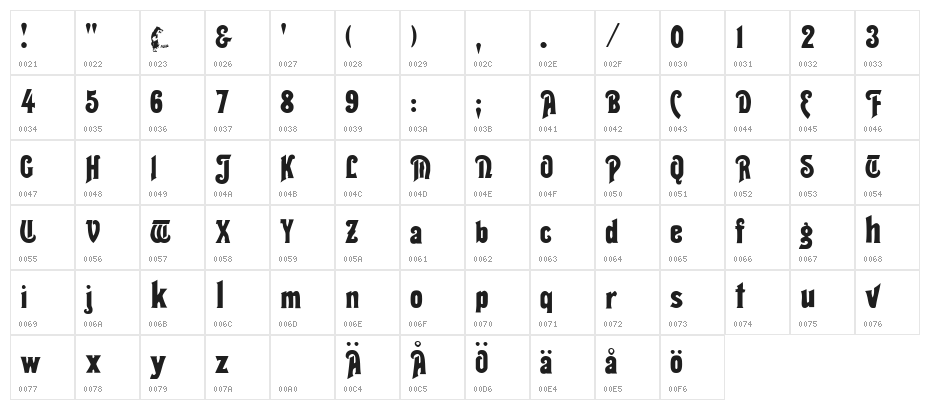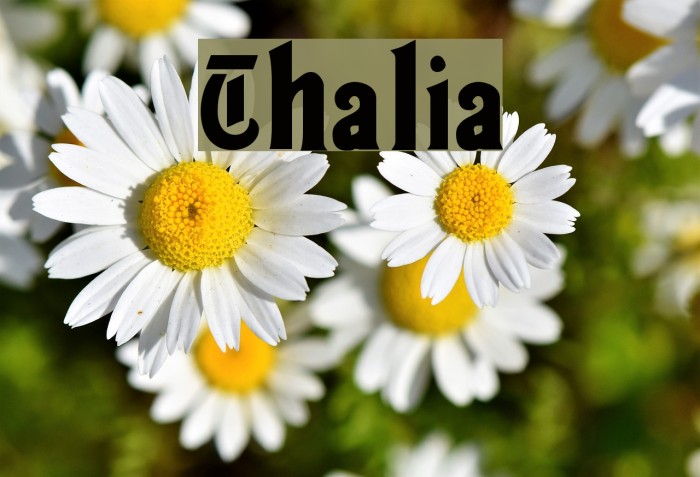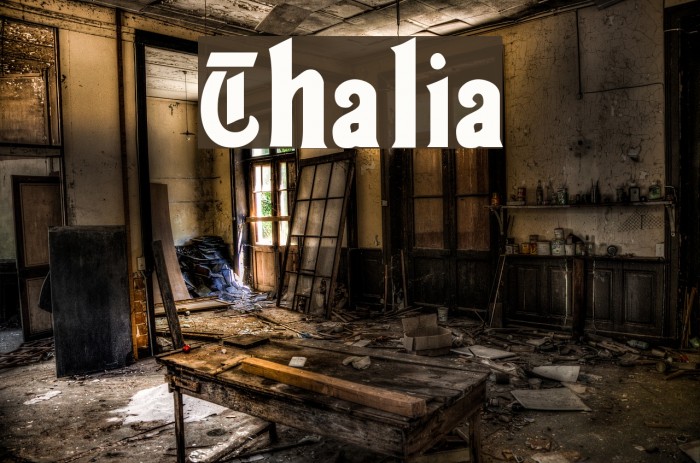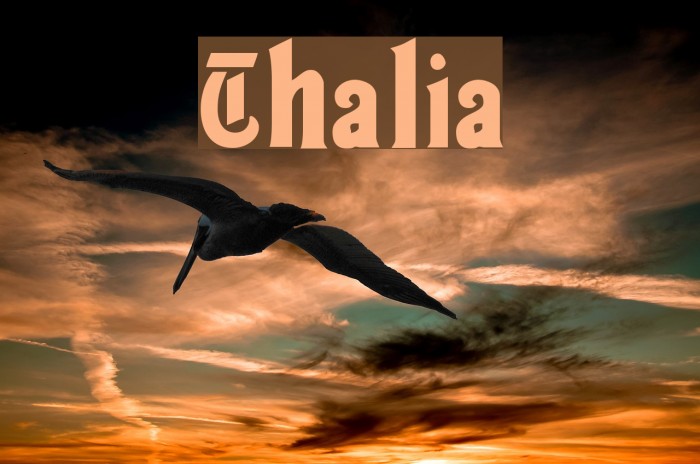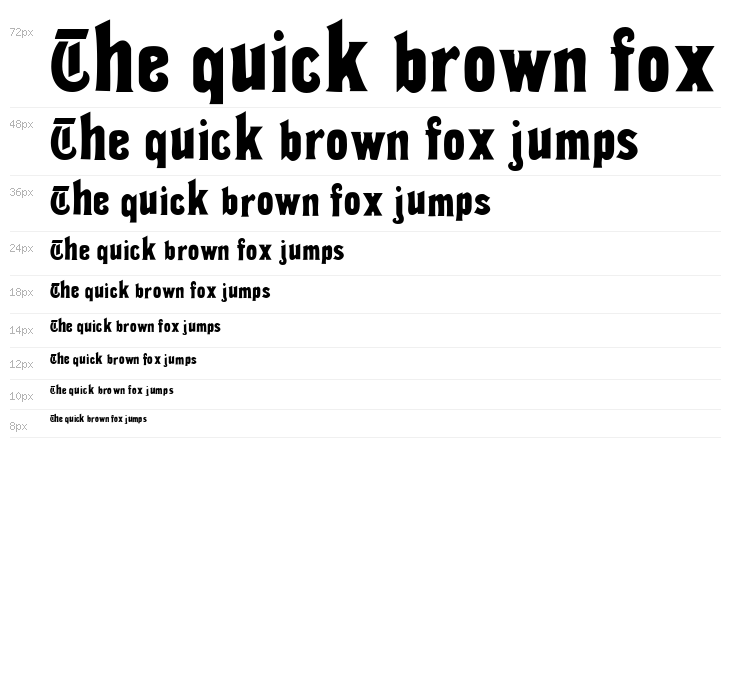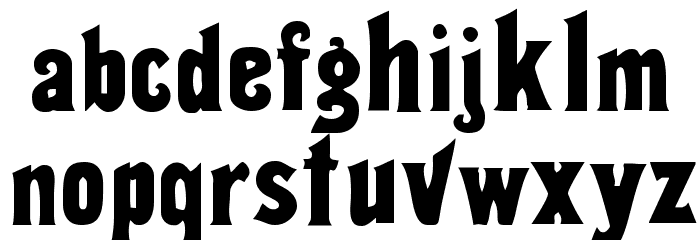
Thalia Font
Thalia Description
This font features a bold and striking design with a distinct Gothic influence. The uppercase letters exhibit sharp, angular serifs and a strong vertical emphasis, creating a dramatic and imposing appearance. The lowercase letters maintain this boldness with slightly rounded edges, adding a touch of softness to the overall design. The numerals are consistent with the bold style, ensuring readability while maintaining the font's unique character. Special characters are creatively designed, adding to the font's decorative appeal. This font is ideal for projects that require a strong visual impact and a touch of historical or medieval flair.
| Proposed Projects | Ideal for posters, book covers, branding, and any project needing a dramatic and historical touch. |